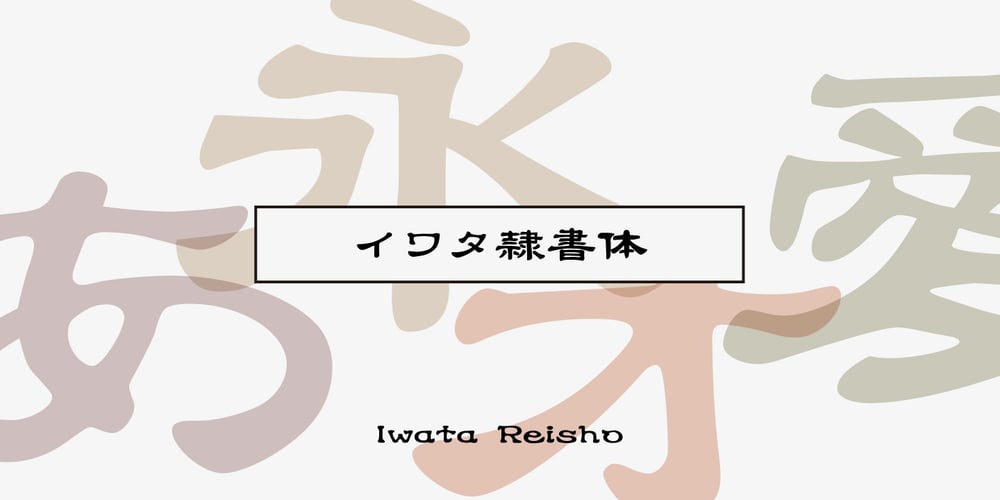
Iwata New Reisho Pro
Iwata New Reisho Pro font
Iwata New Reisho Pro Font Family was designed by published by IWATA. Iwata New Reisho Pro contains 1 styles and family package options. 中国で古くから使用されていた伝統的な隷書を源流にする「イワタ隷書体」と、 新しい感覚の「イワタ新隷書体」の2種類があります。